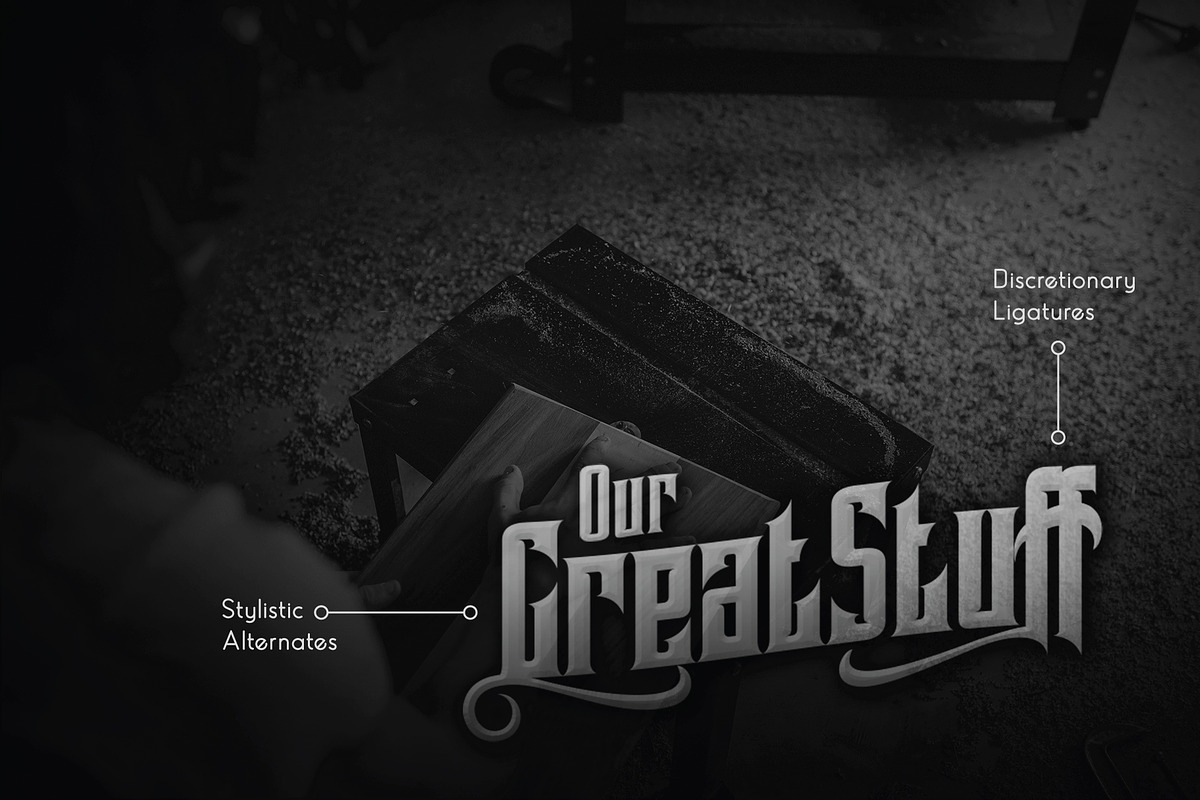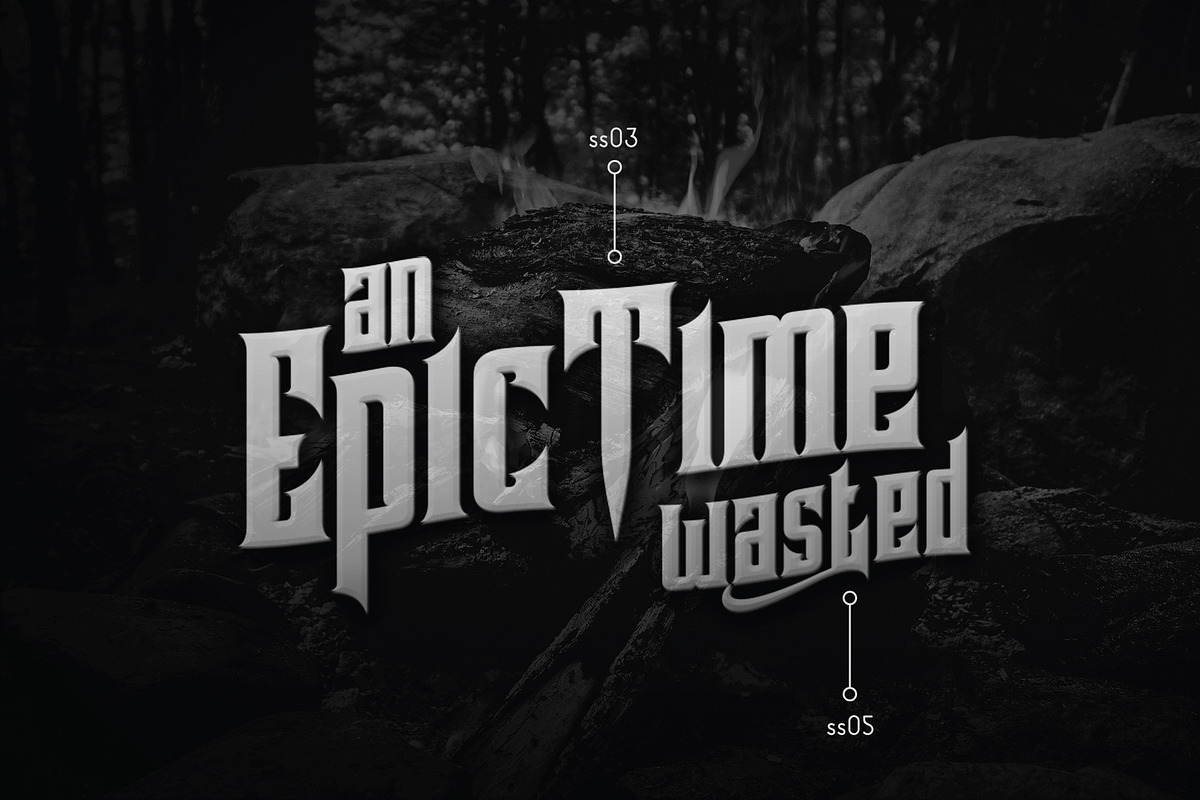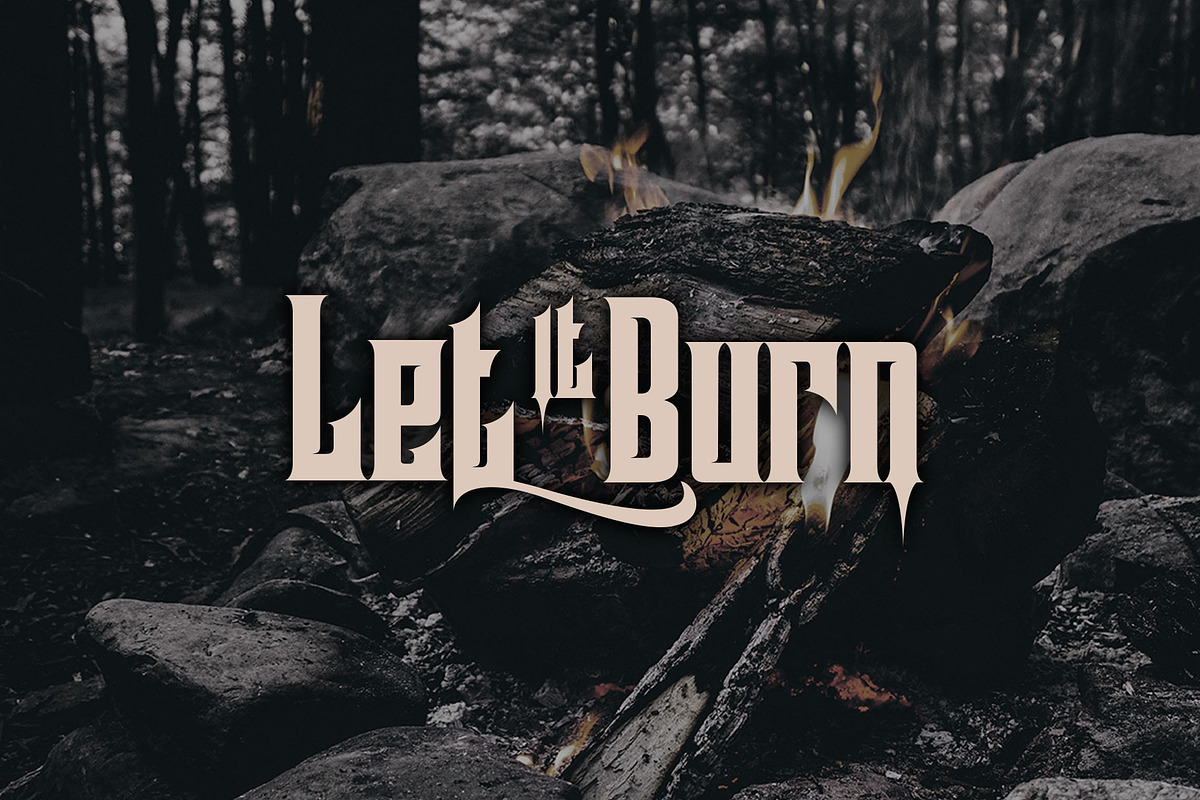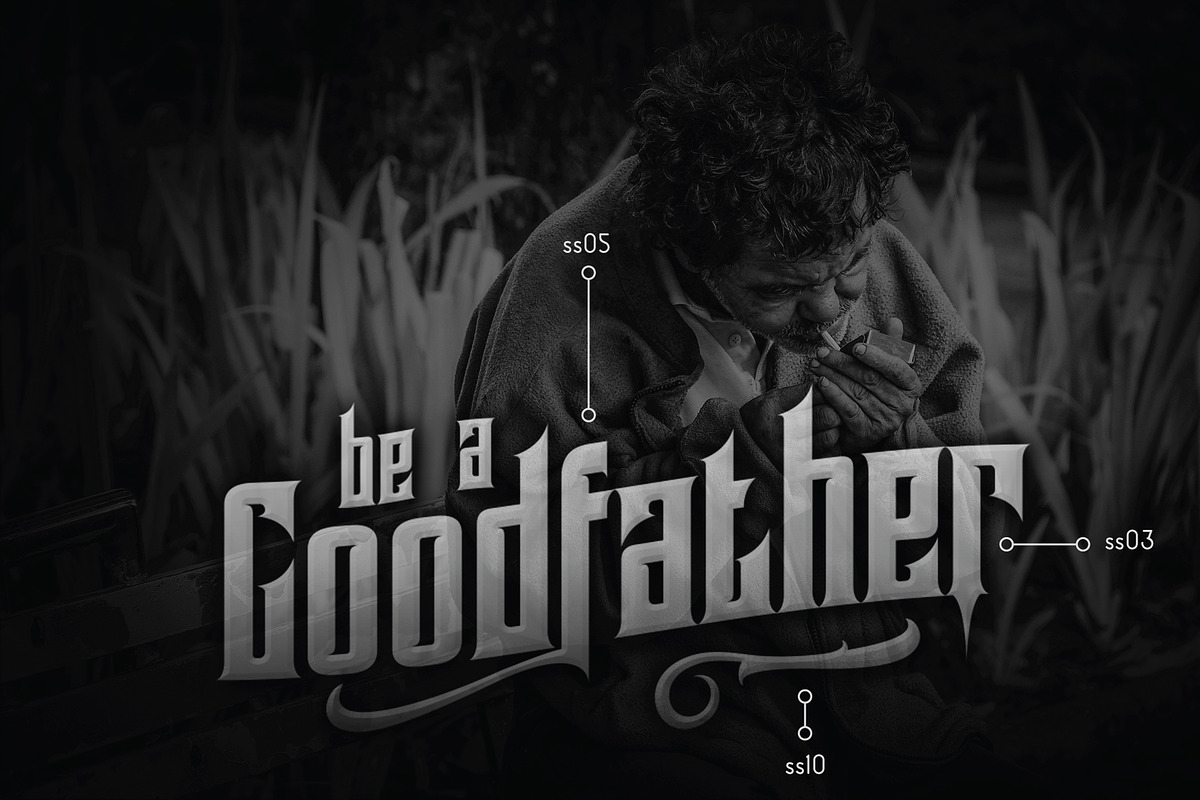
Pindunk Font
Pindunk Font by Vacatype Co. is a font selected for branding, posters, packaging, typography.
- It includes a full set of uppercase and lowercase letters as well as multi-lingual and currency support, numerals, punctuation, alternates,
- Character Set A-Z (Uppercase & Lowercase)
- Numerals & Punctuation
- Titling
- ss01, ss02, ss03, ss04, ss05, ss06, ss07, ss08, ss09, ss10
- Standard & Discretionary Ligatures
Why Pindunk Font is worth a look
Pindunk Font by Vacatype Co. fits naturally into Branding, posters, packaging, typography.